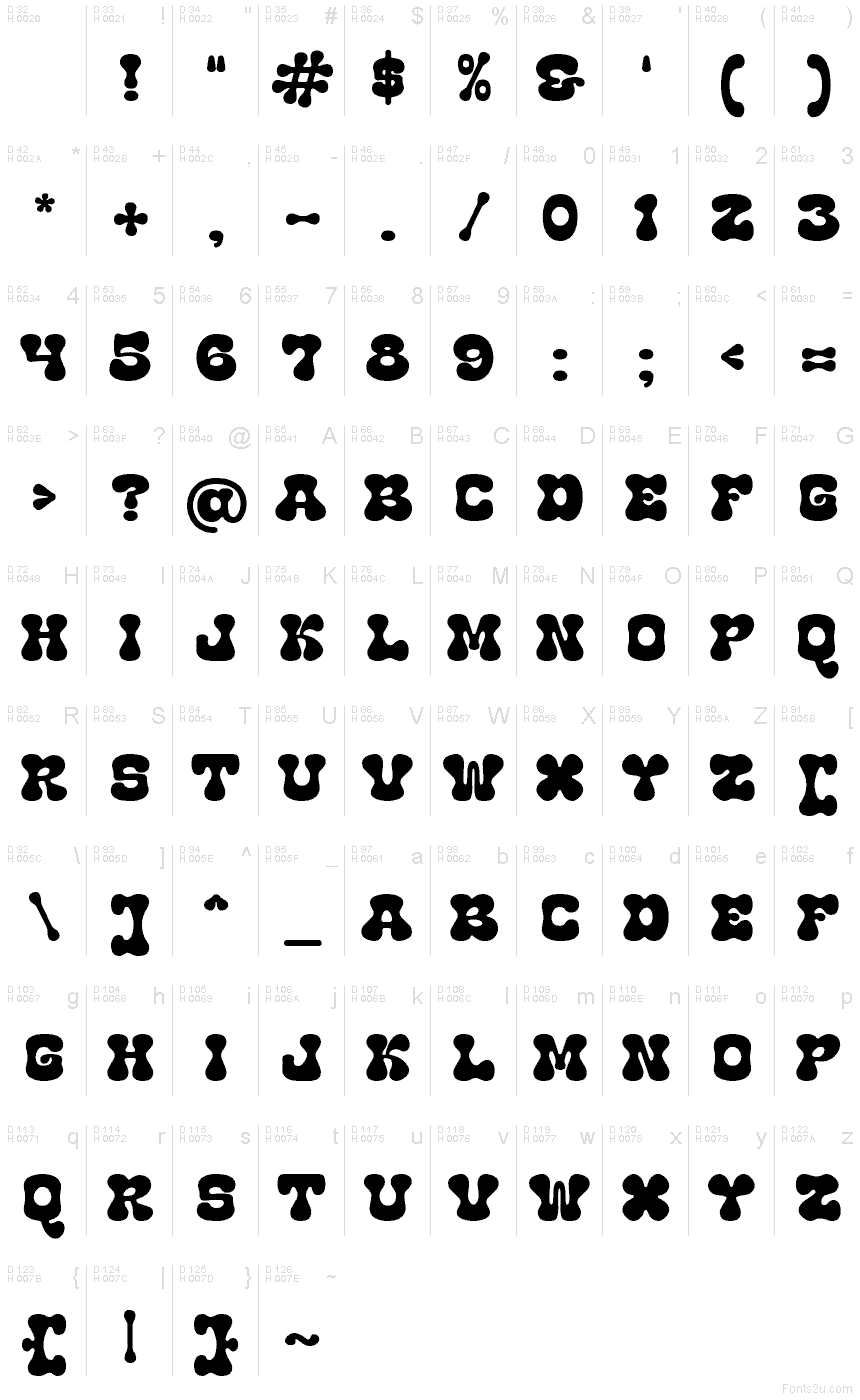
Grimace Regular
Grimace font by Font Bundles is a free bold groovy display font. It swells with blobby, lava-lamp curves and soft, scalloped edges that feel inky and hand-poured. The chunky rhythm and elastic silhouettes create big, unified word-shapes, turning even short titles into graphic blobs of attitude.
Using Grimace, headlines snap to attention on psychedelic posters, festival branding, album covers, soda or craft-beer labels, retro merch, and playful social media graphics. This free font thrives at oversized scales where its puddled forms can breathe; add a touch of letterspacing for extra ooze. Pair it with a clean geometric sans for copy to let Grimace’s bubbly personality do the shouting.